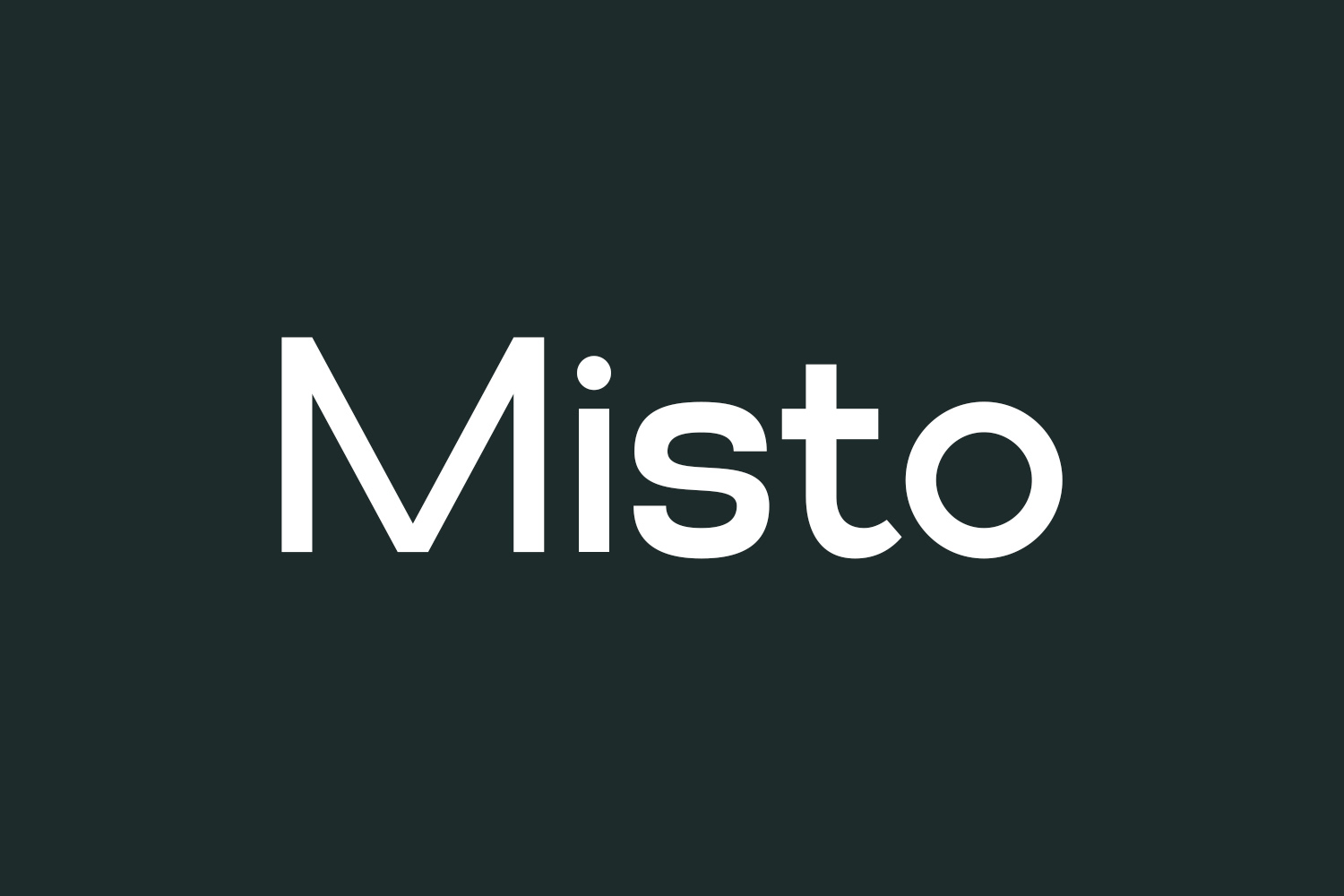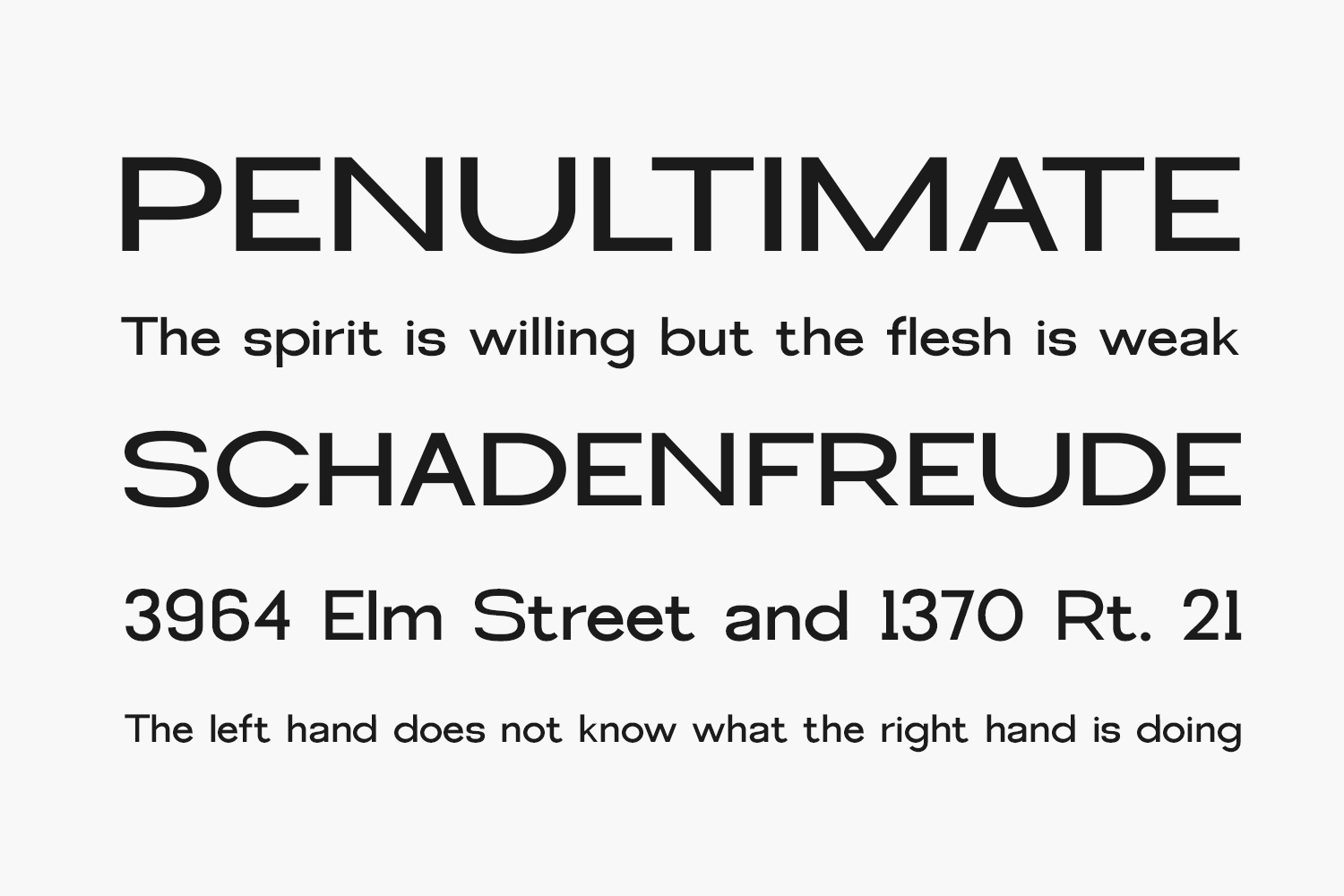
Introducing the contemporary sans serif Misto Free Font, drawing inspiration from renowned minimalist logos. Ideal for template designs, brochures, videos, advertising branding, logos, invitations, layout designs, elegant crafts, beauty concepts, and beyond. Elevate your creative projects with this modern and versatile font. Misto Free Font is free for personal use only. Please purchase the full version for commercial use.